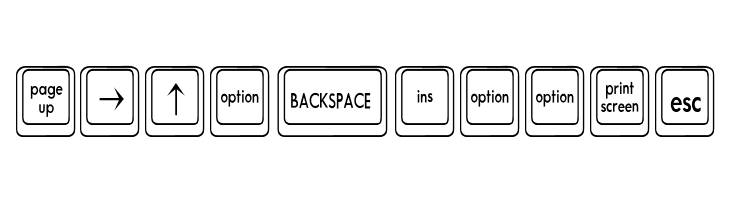
A modern, geometric font with thin, uniform lines and a minimalist style.
A modern, geometric font with clean, rounded edges and uniform stroke width.
A bold, 3D cube-style font with a modern, geometric design.
A modern, geometric font with angular shapes and a futuristic feel.
A modern, geometric font with clean lines and a structured, monospaced appearance.
A modern, geometric font with clean lines and uniform stroke width.